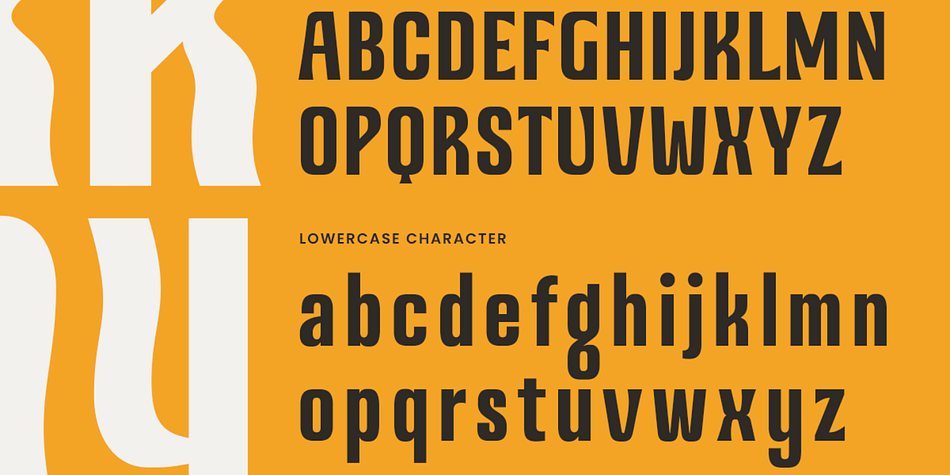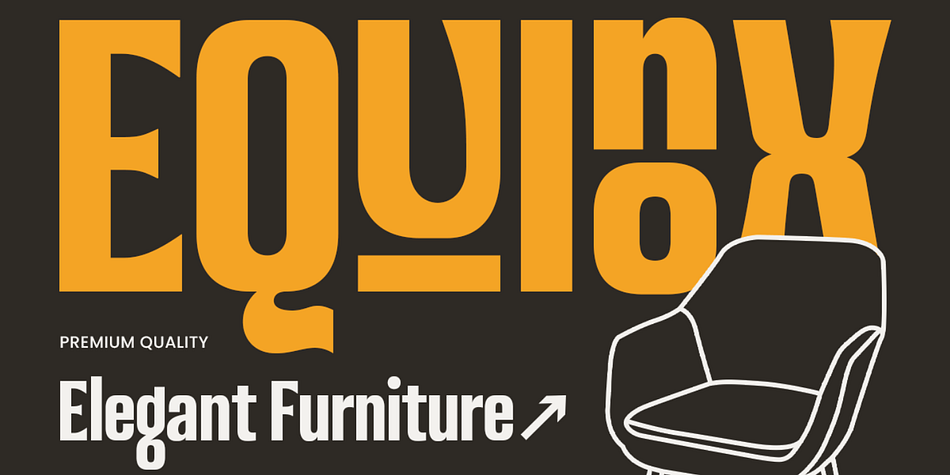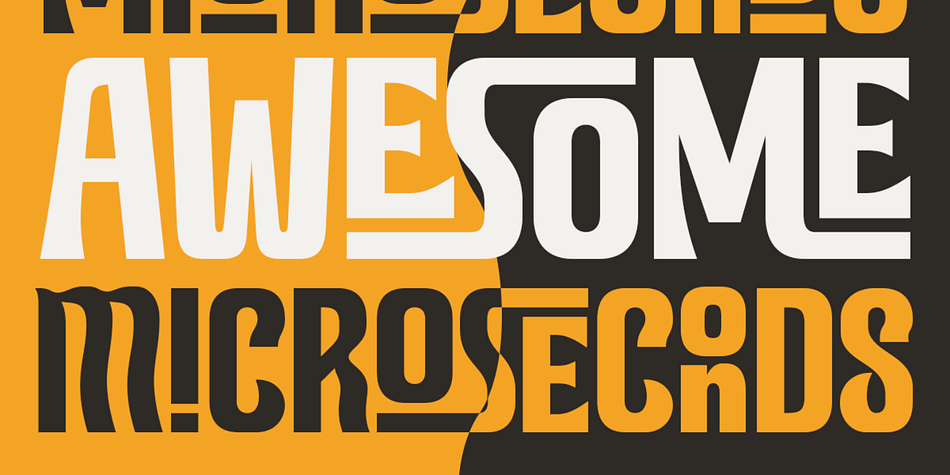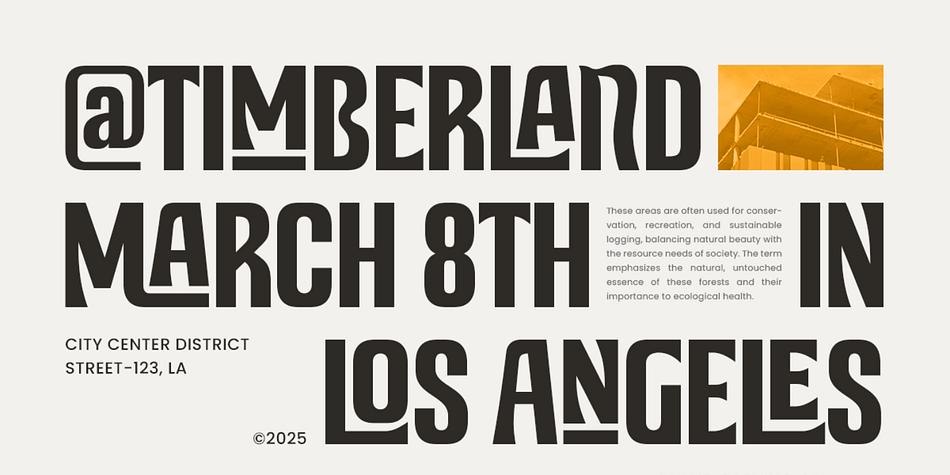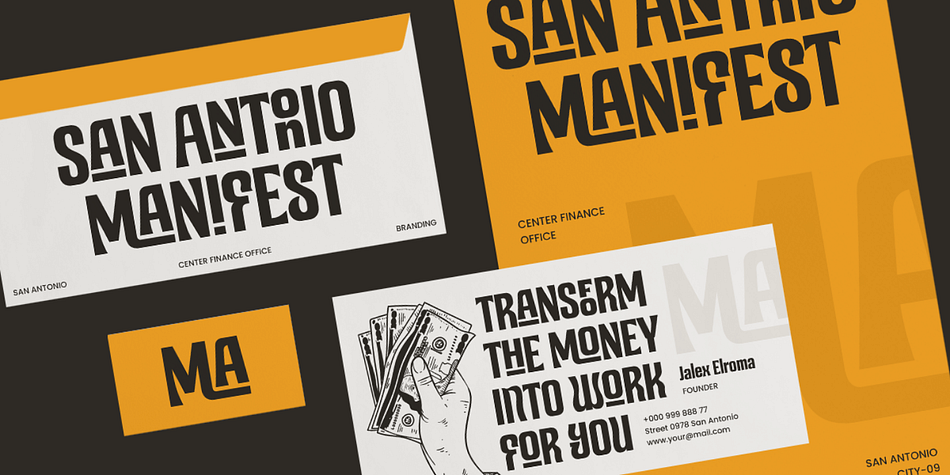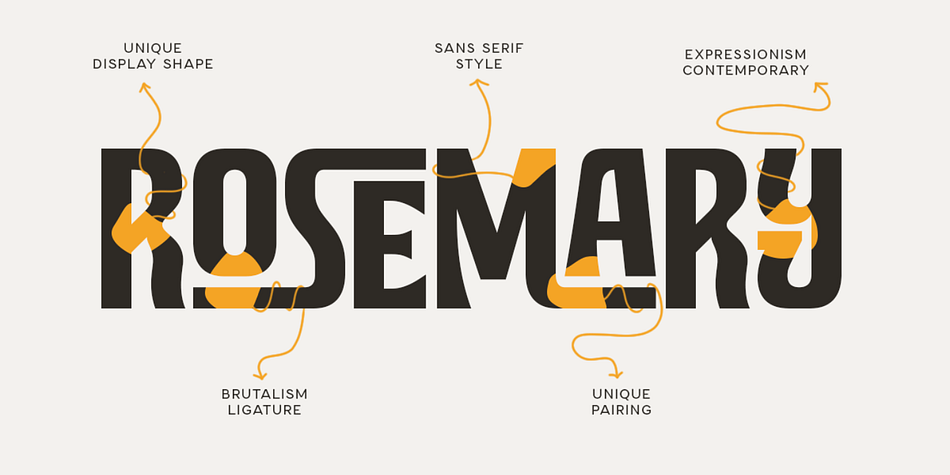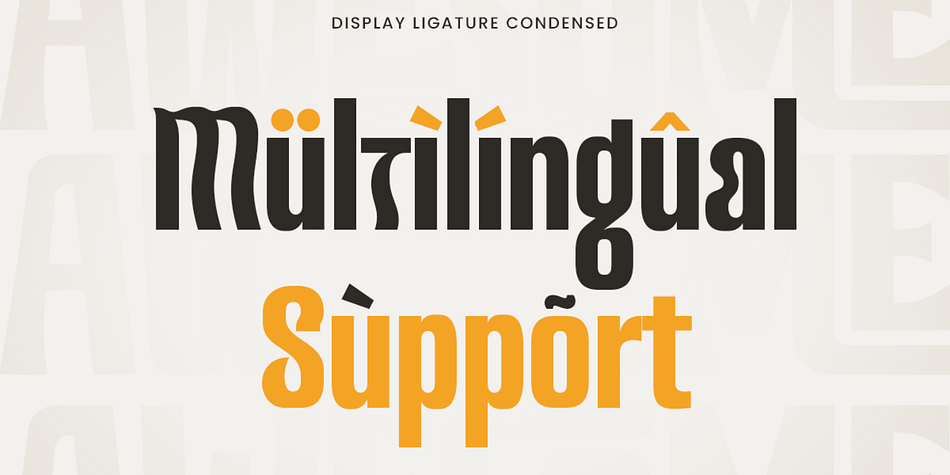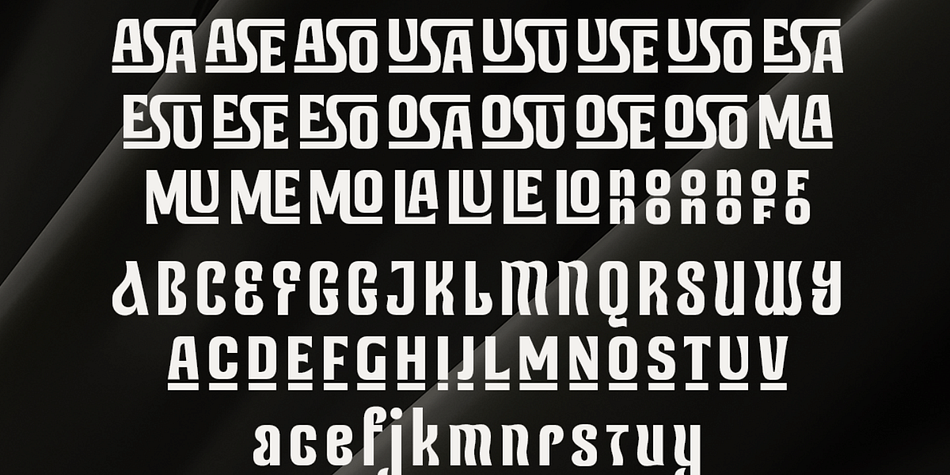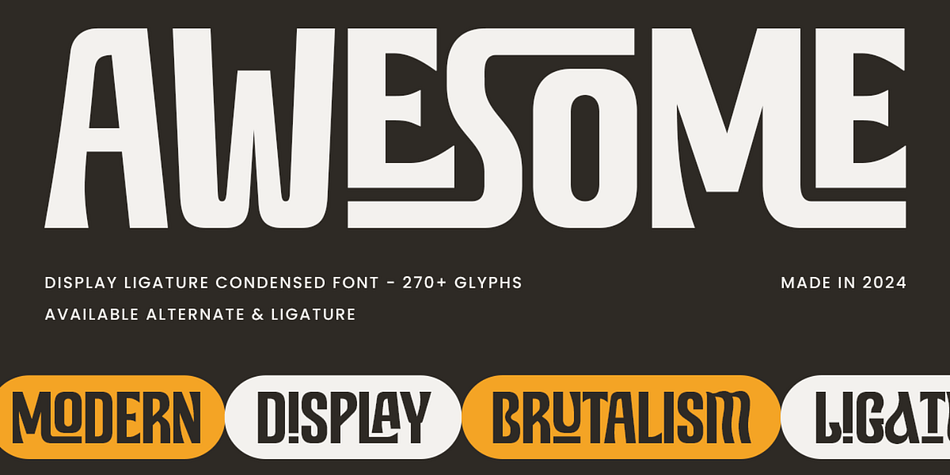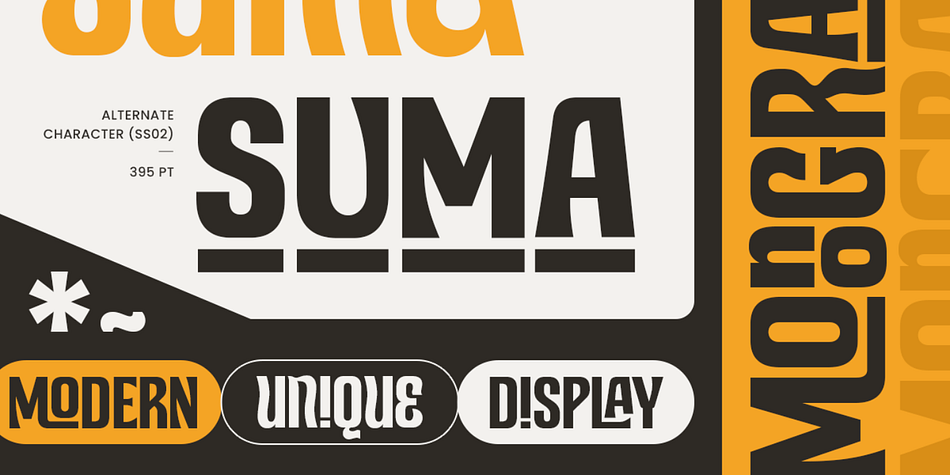
Make a Bold Statement
Awesome is a display ligature condensed font crafted to make your designs unforgettable. Its unique ligatures and sleek condensed style create a sense of sophistication and modernity, making it ideal for eye-catching headlines and creative branding.
Versatility with Elegance
From posters to logos, Awesome adapts effortlessly to various design needs. Its bold yet minimalistic approach ensures your work remains stylish and professional, perfect for projects that require a strong and memorable visual identity.
Express Creativity with Style
Awesome allows designers to push boundaries and explore new possibilities. Its distinctive ligatures and condensed structure add flair to your projects, helping you create designs that captivate and inspire.
Awesome Display Ligature Condensed Font Features:
Alternates & Ligature Characters Ready
Punctuation, Number, and Symbol
Uppercase and Lowercase
Opentype Features
Multilingual Characters available for:
Afrikaans, Albanian, Asu, Basque, Bemba, Bena, Breton, Chiga, Cornish, Dutch, English, Estonian, Filipino, Finnish, Friulian, Galician, German, Gusii, Indonesian, Irish, Italian, Kabuverdianu, Kalenjin, Kinyarwanda, Luo, Luxembourgish, Luyia, Machame, Makhuwa-Meetto, Makonde, Malagasy, Manx, Morisyen, North Ndebele, Nyankole, Oromo, Portuguese, Quechua, Romansh, Rombo, Rundi, Rwa, Samburu, Sango, Sangu, Scottish Gaelic, Sena, Shambala, Shona, Soga, Somali, Spanish, Swahili, Swedish, Swiss.